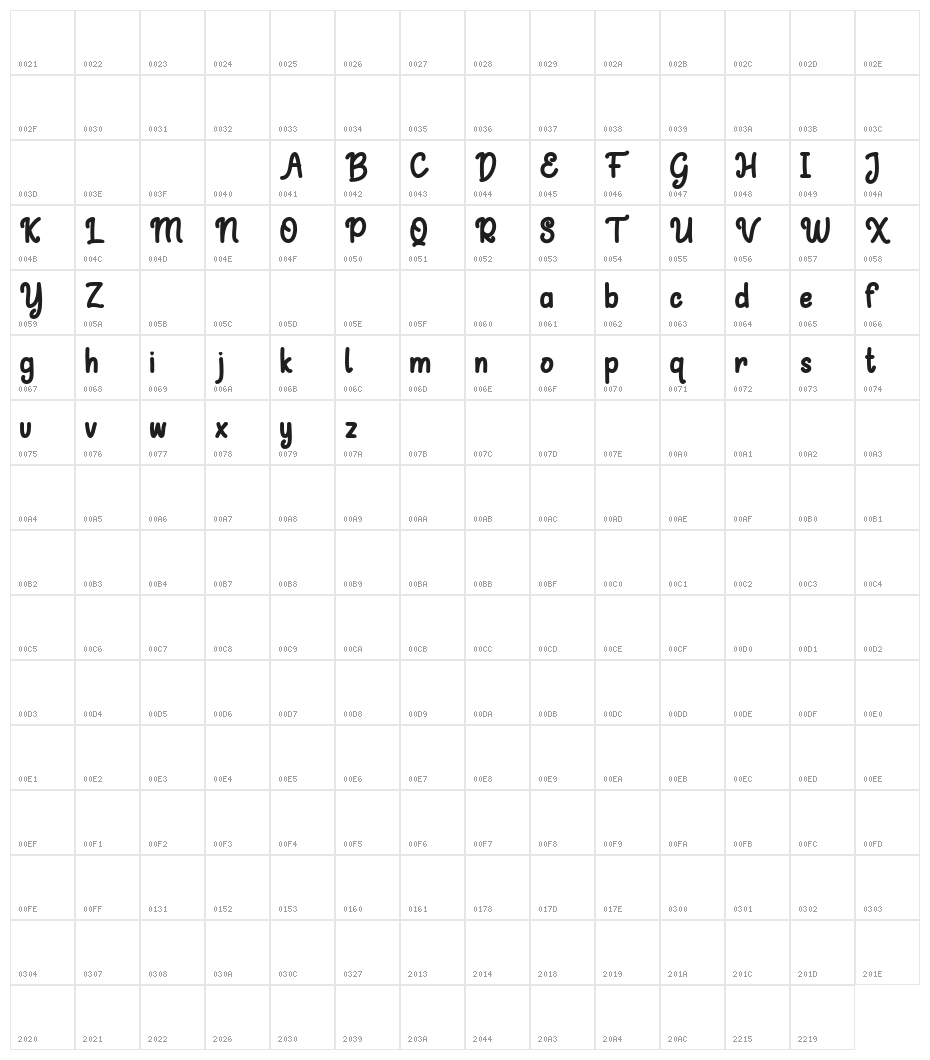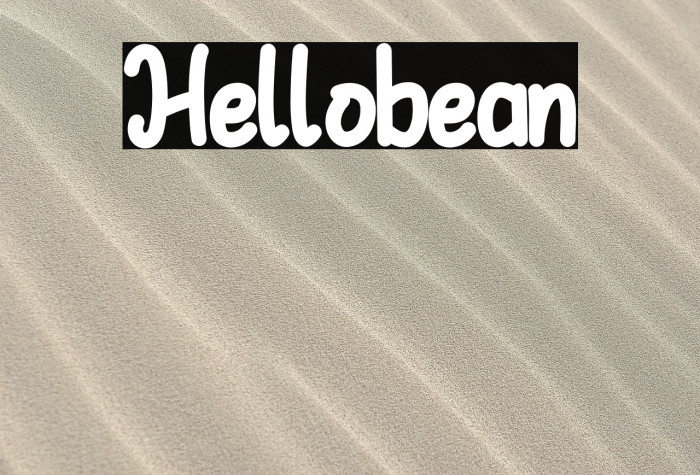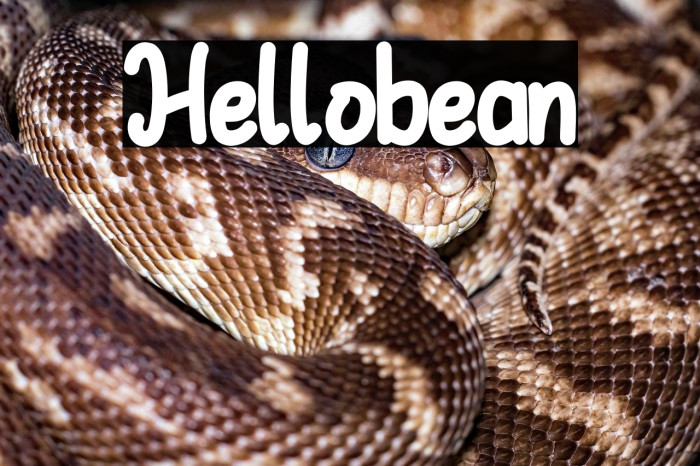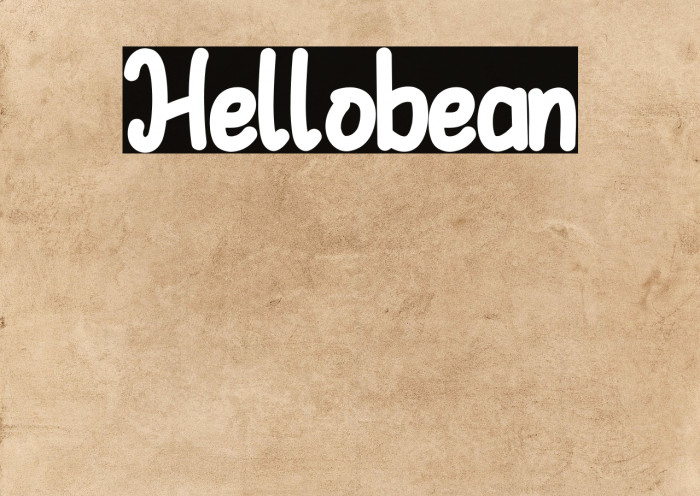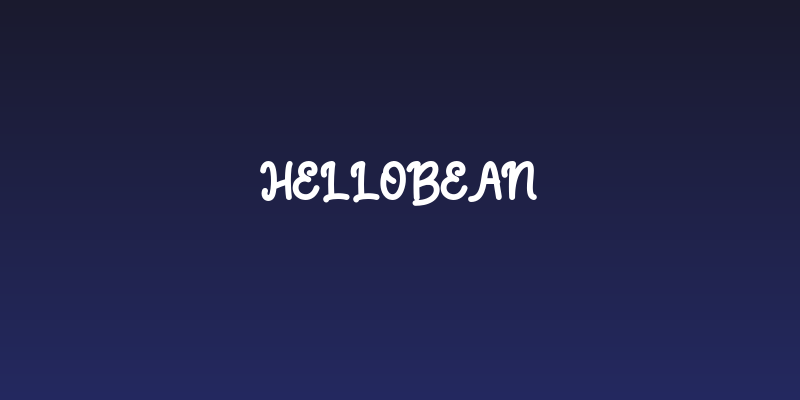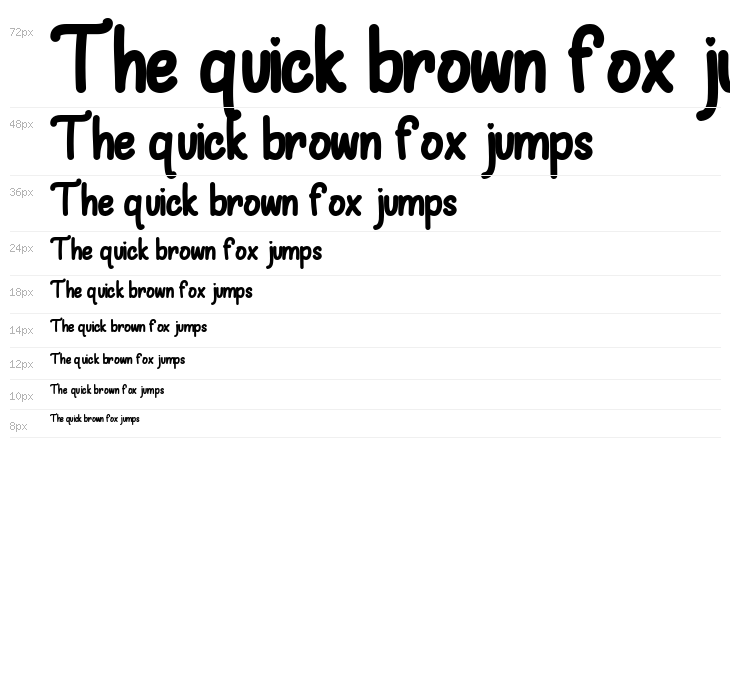
Hellobean Font
A playful and bold handwritten font with rounded edges and a casual style.
| Overall Style | Playful, Casual |
| Proposed Projects | Greeting cards, children's books, playful branding. |